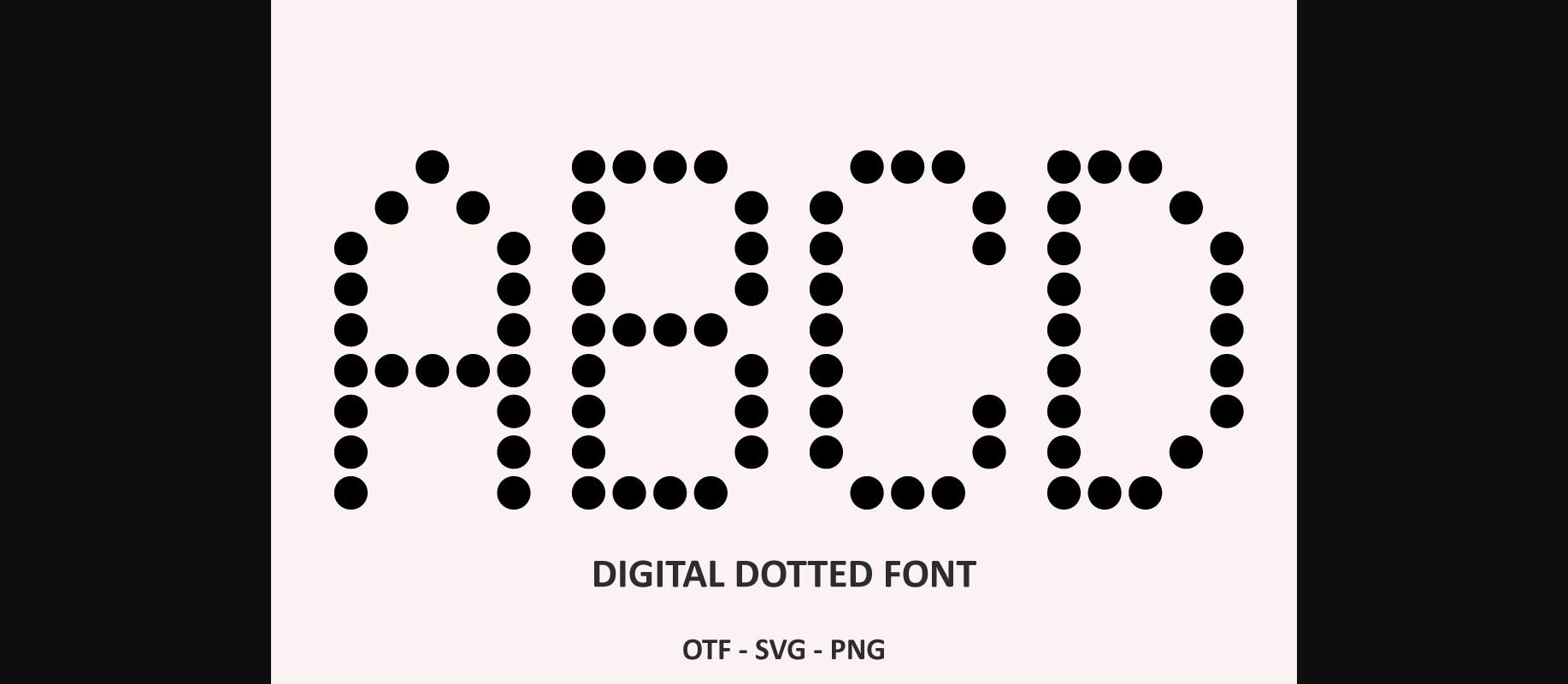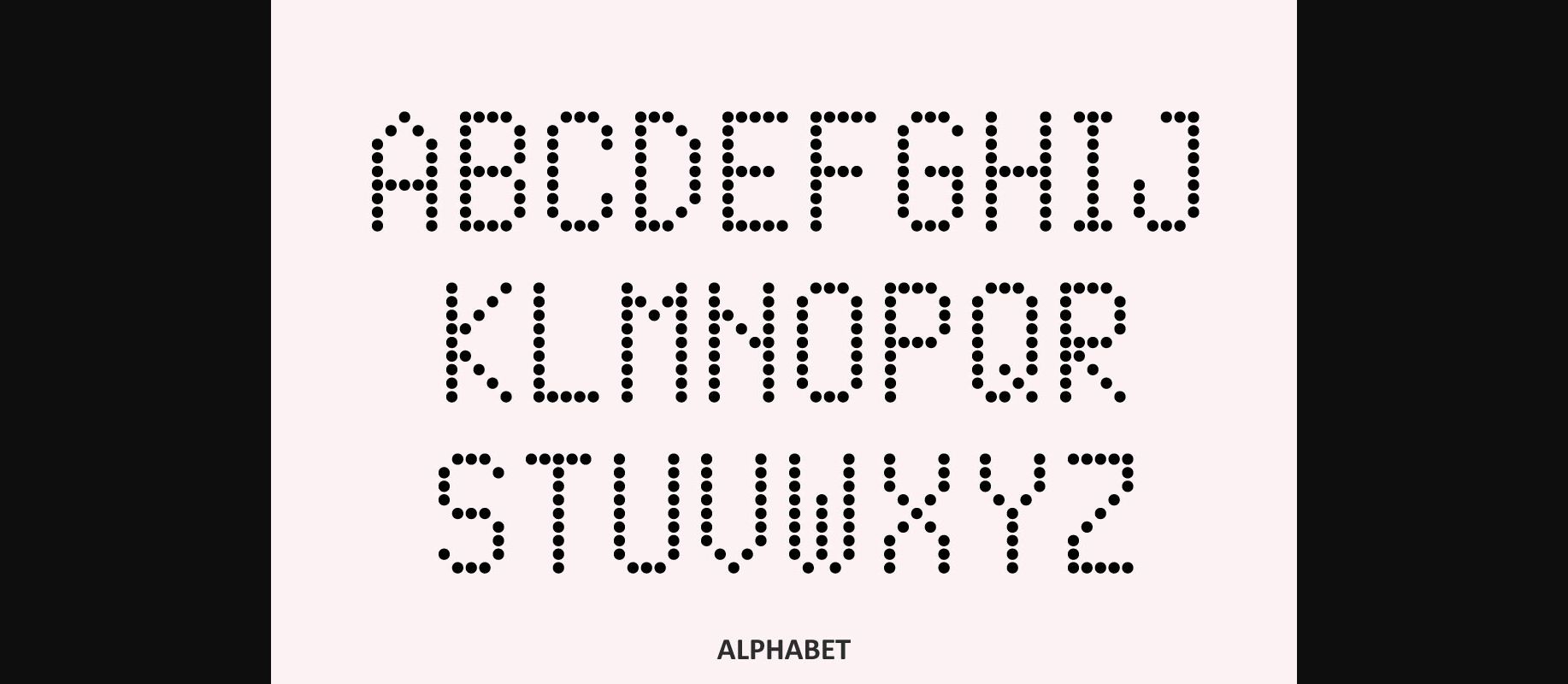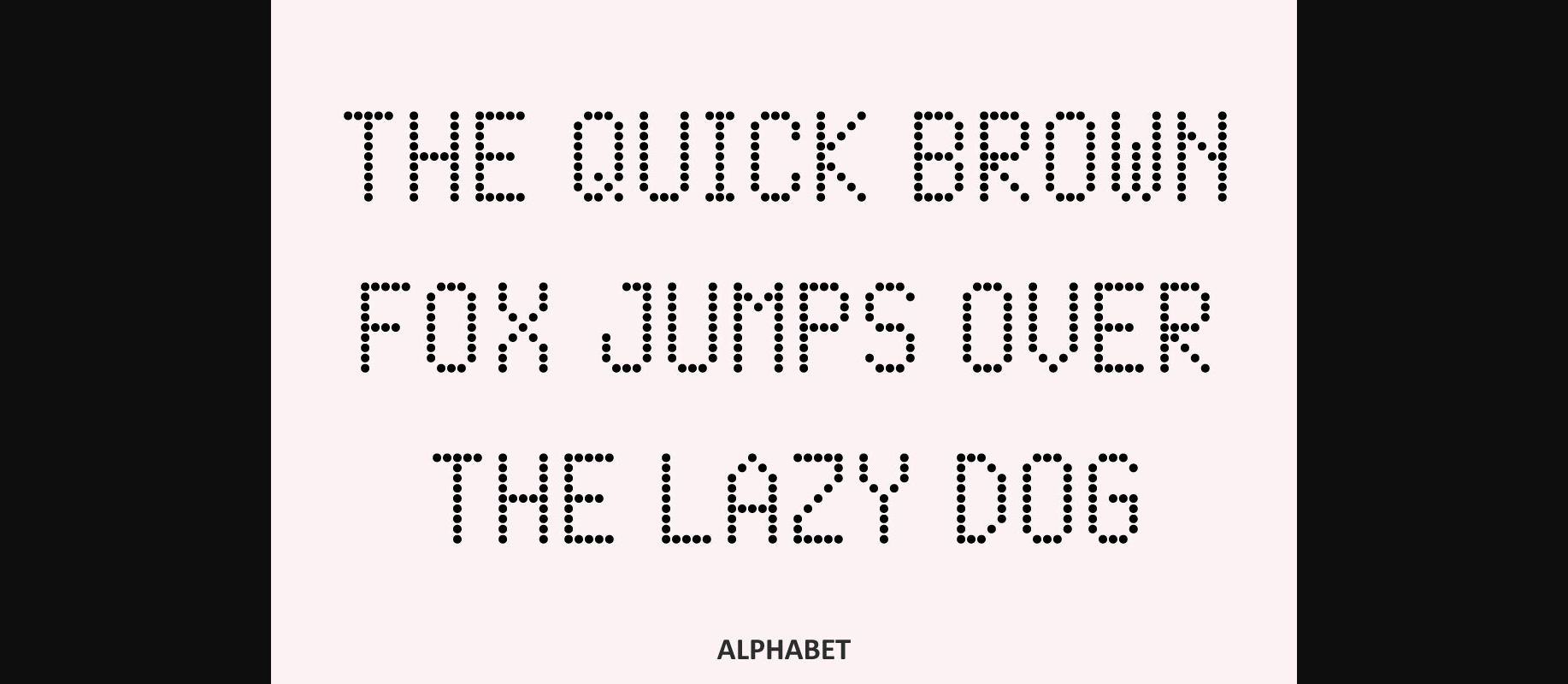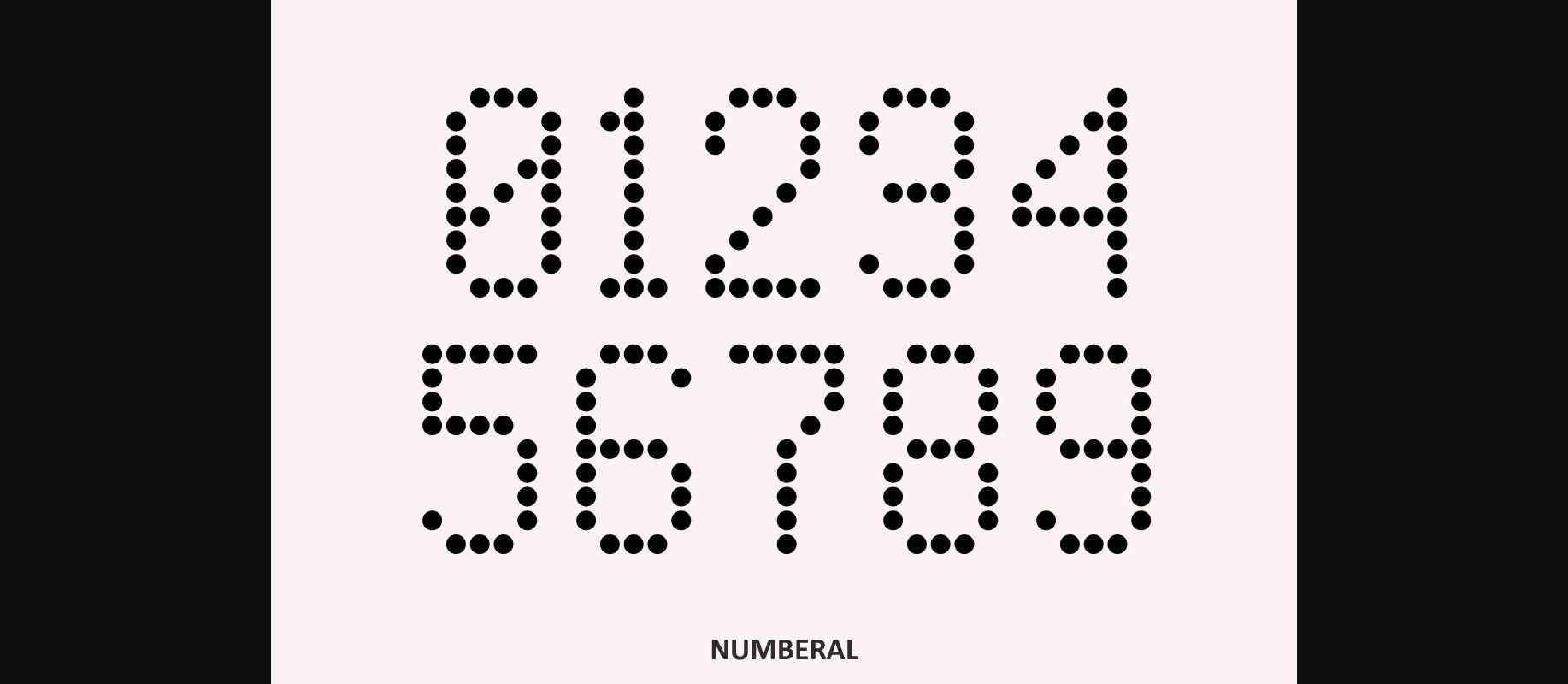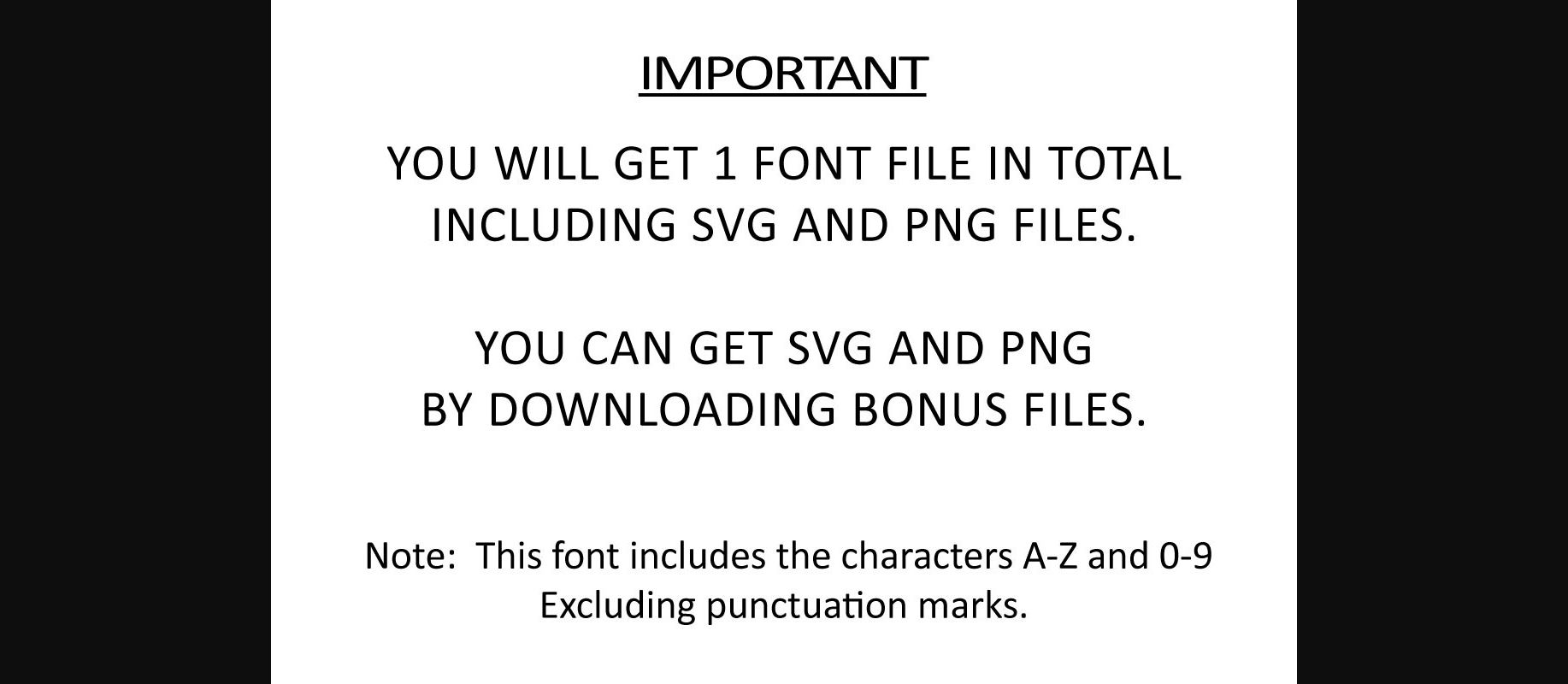
Digital Dotted Font
About Digital Dotted Font
Introducing “Digital Dotted” – a unique and captivating dot font display style to elevate your visual content. With a perfect blend of modernity and nostalgia, our dot font display adds a distinctive touch to your design and can be used to create children’s activity books for KDP or Use it for designs that require a retro look reminiscent of an old office document. You can add them to make them great for creative projects.